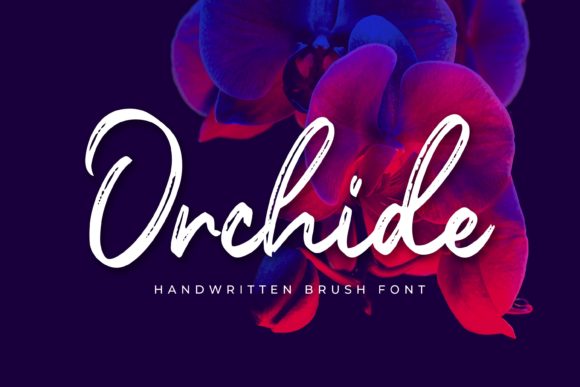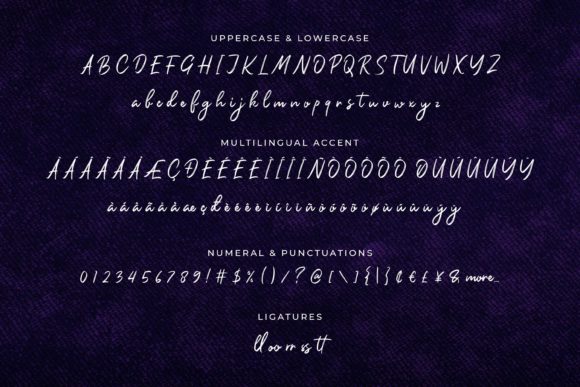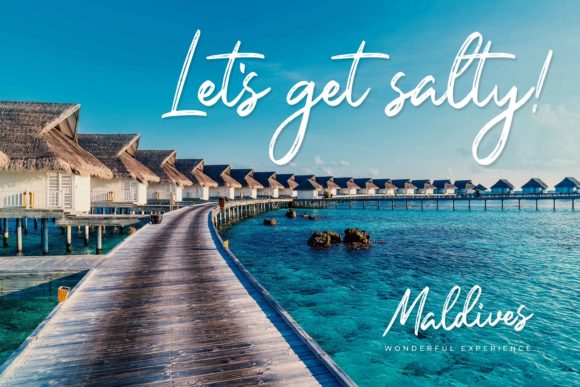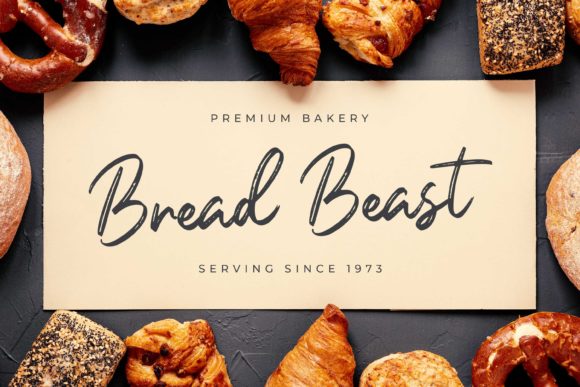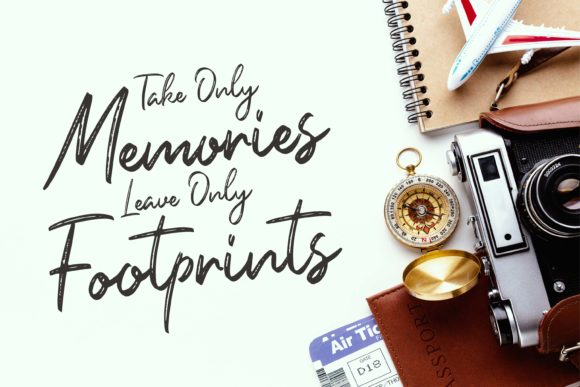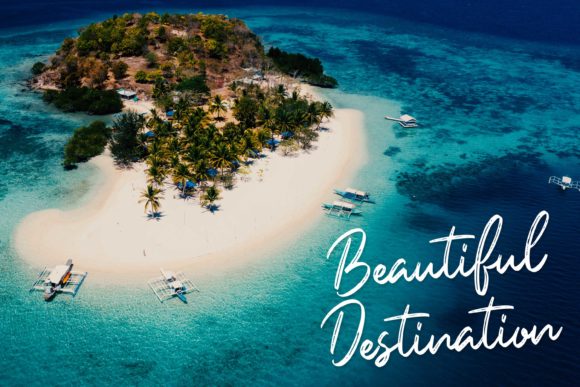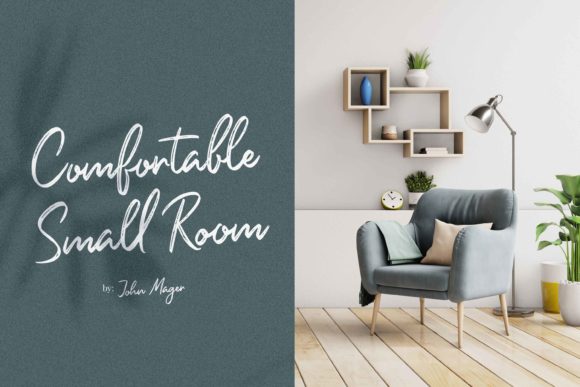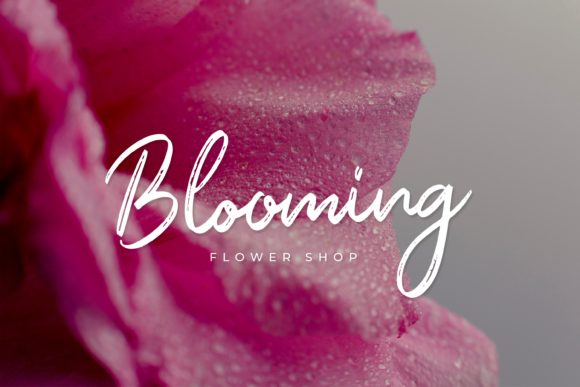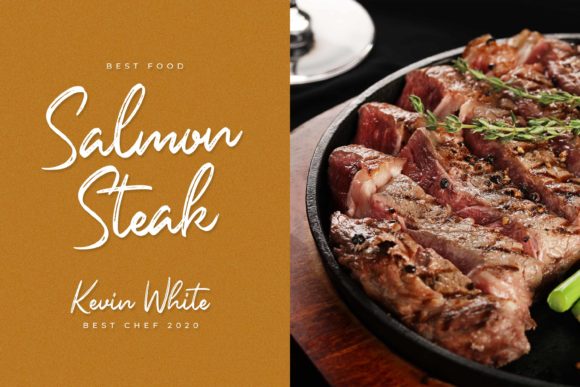
Orchide Font
About Orchide Font
Orchide is a casual, unique script font, created by using a brush pen. This font is the perfect fit for all of your logos, branding, social media, and crafty DIY projects.